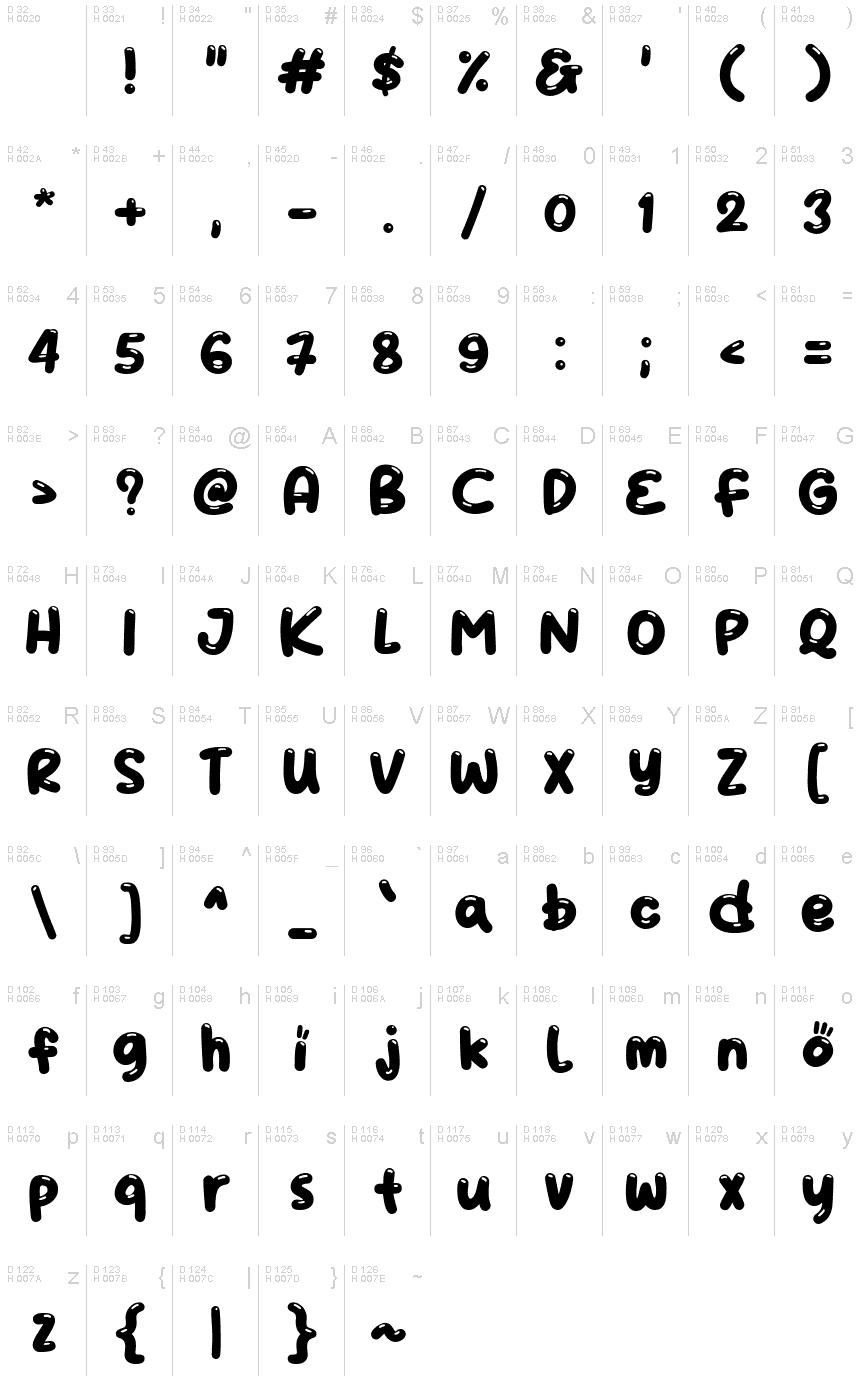
ColaKind
Meet ColaKind, the playful and bold display font designed by Khurasan. With a cartoon-style design and semi-expanded width, ColaKind is versatile enough to be used on a variety of projects. Its bold weight makes it ideal for headlines, logos, and branding materials that need to be attention-grabbing. Whether you're designing a children's book cover or creating graphics for social media, ColaKind is sure to make your text pop with its fun and quirky personality. Let this whimsical font add some flavor to your next project!